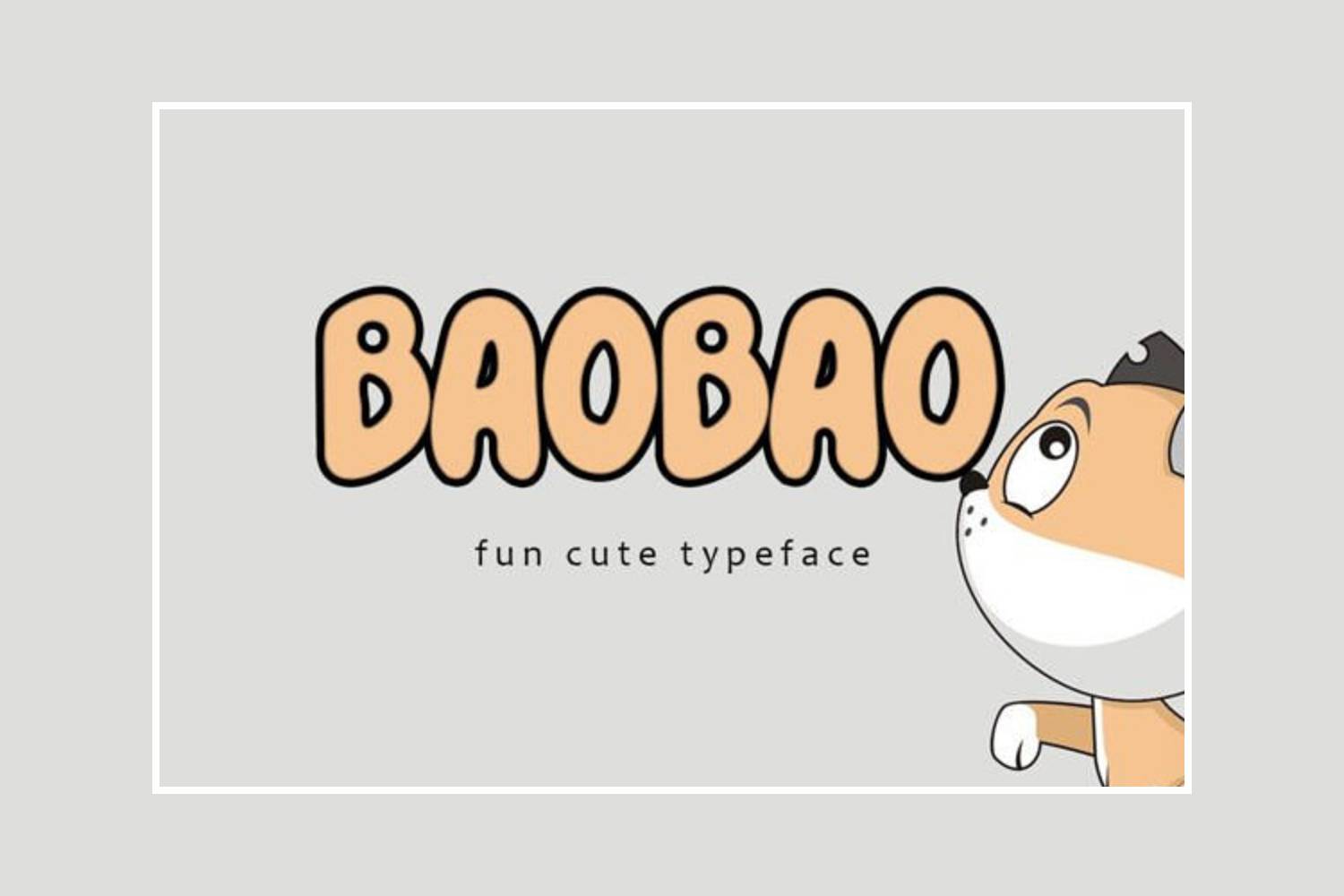
Baobao is a playful and bold sans serif font with rounded, chunky letterforms that create a friendly and approachable feel. Its thick strokes and soft, organic shapes make it perfect for fun, casual designs like children's books, playful branding, and eye-catching headlines. This font’s unique, slightly irregular style lends a sense of warmth and creativity, making it ideal for projects that want to stand out with a lighthearted, whimsical touch.
Baobao Font